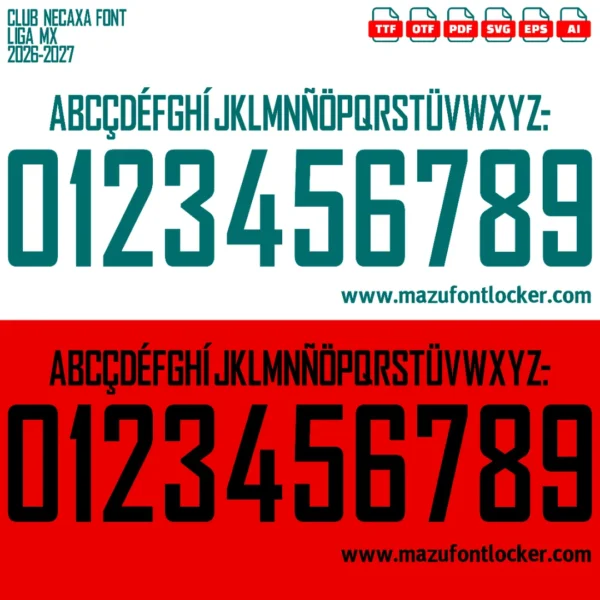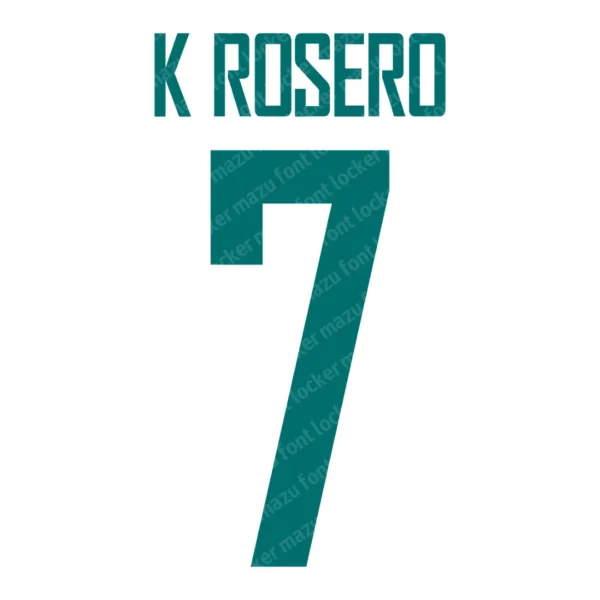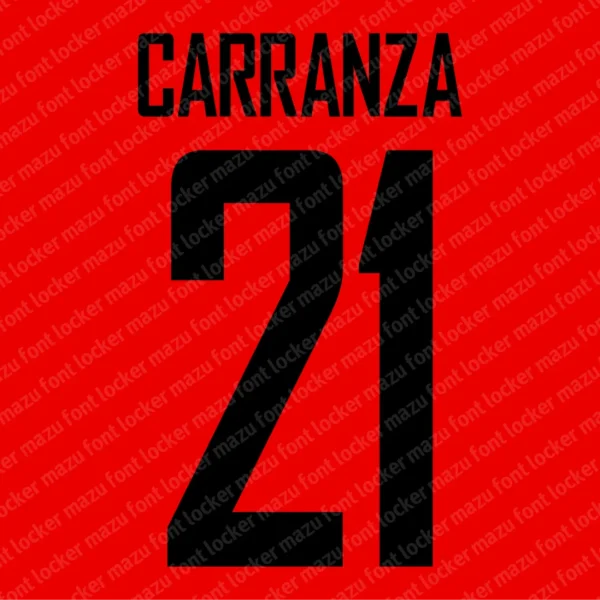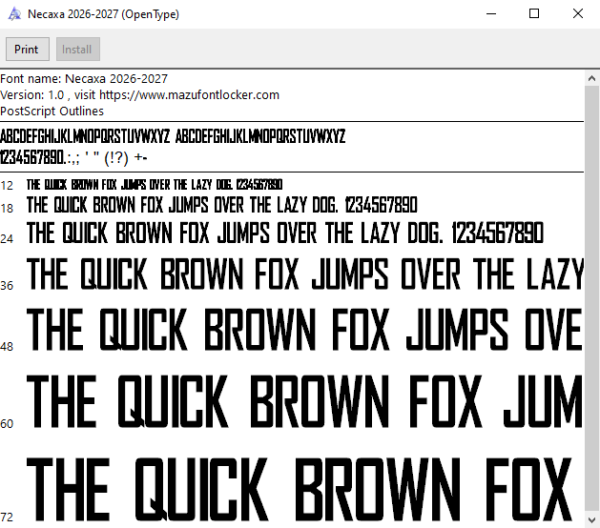
Club Necaxa 2026-2027 Font Vector – Epic Rayos Thunder Masterpiece
Club Necaxa 2026-2027 Font Vector – Iconic Red & White Typeface
The Club Necaxa 2026-2027 Font Vector is a premium typeface that faithfully recreates the official match lettering worn by Club Necaxa during the anticipated 2026-2027 season. This high-quality vector font kit captures the bold, dynamic, and instantly recognizable typography that perfectly complements the club’s legendary red and white identity.
Designed for professional designers, football enthusiasts, and passionate Necaxa supporters, the Club Necaxa 2026-2027 Font Vector delivers exceptional authenticity for creating realistic jersey mockups, football merchandise, social media graphics, match posters, and custom fan artwork. Every character has been carefully recreated to match the modern yet classic visual style of one of Mexico’s most beloved football clubs.
This font stands out thanks to its precise vector construction and authentic club styling. Every letter and numeral has been meticulously recreated to match the official shirt lettering expected for the 2026-2027 Liga MX season. Whether you’re producing professional kit templates or creating eye-catching football content, the Club Necaxa 2026-2027 Font Vector delivers a genuine match-ready appearance.
The lettering featured in the Club Necaxa 2026-2027 Font Vector combines clean geometric lines with powerful modern proportions. The result is a premium and highly readable typeface that reflects Club Necaxa’s fighting spirit, rich history, and passionate fanbase.
• Complete uppercase A–Z alphabet and numbers 0–9 in authentic Club Necaxa 2026-2027 style
• Includes authentic Liga MX badge glyph placement beneath player numbers
The Club Necaxa 2026-2027 Font Vector is an independently designed typeface package inspired by the official shirt lettering for the 2026-2027 season. It has been carefully recreated for football enthusiasts, graphic designers, collectors, and creators producing custom jersey concepts, football artwork, and fan-made projects.